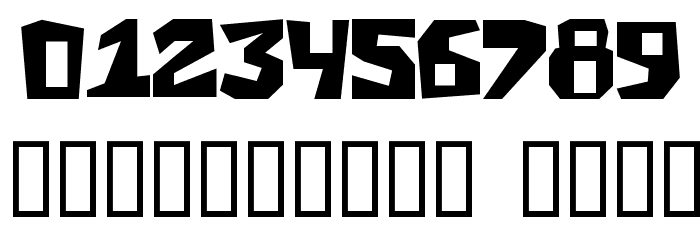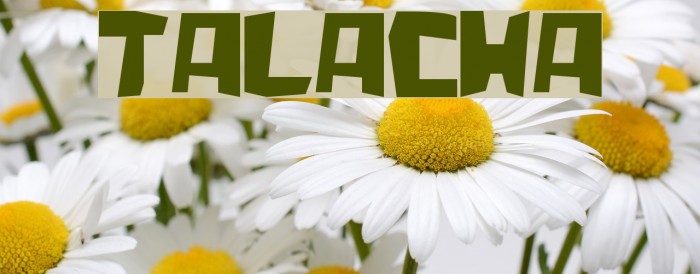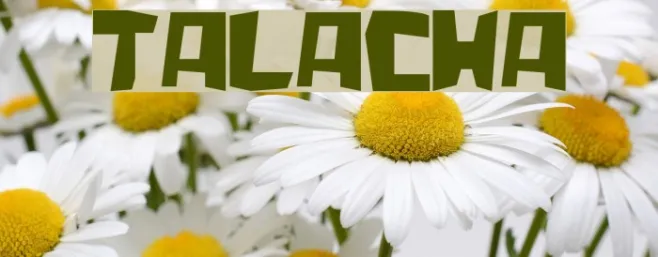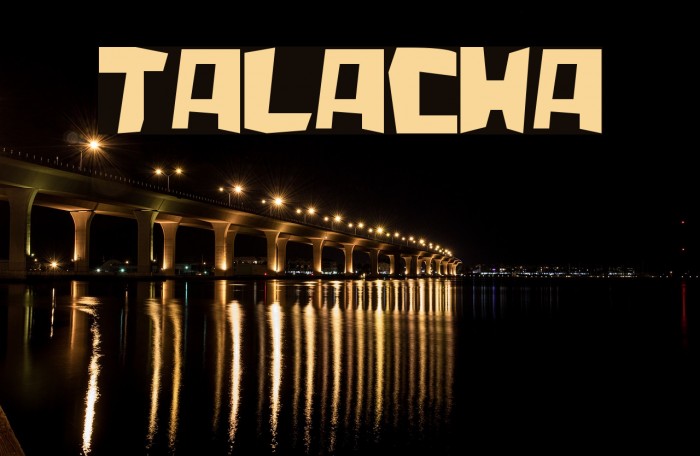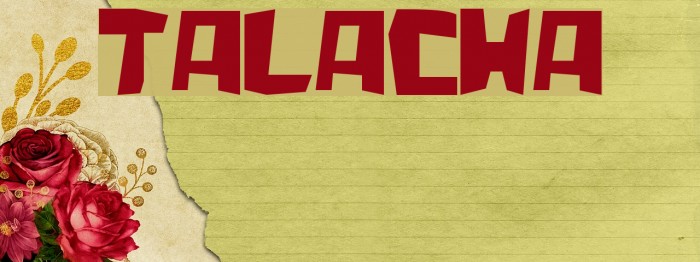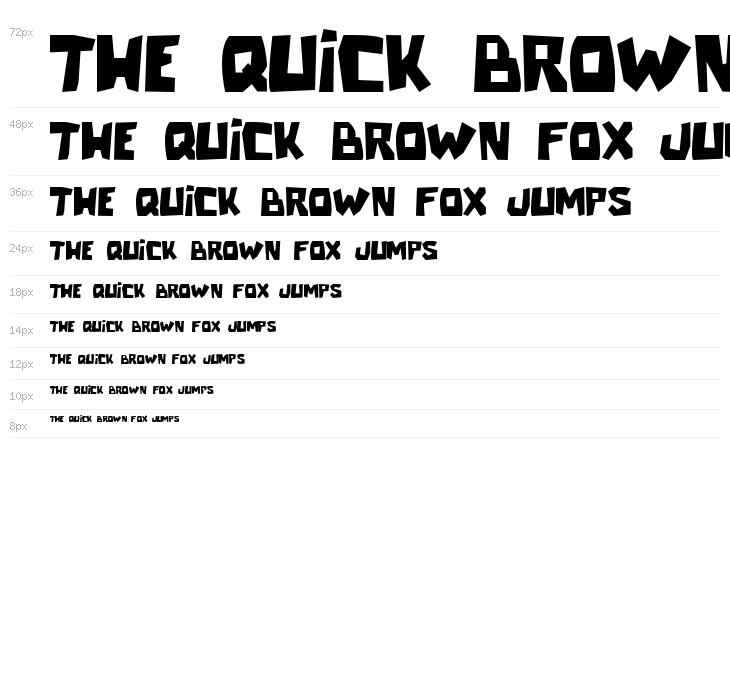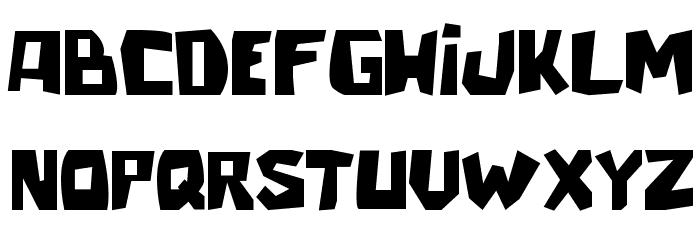
talacha Font
talacha Description
This font features a bold and angular design, characterized by its sharp edges and geometric shapes. The letters are heavily stylized, with each character appearing as if it has been carved or chiseled, giving it a rugged and dynamic appearance. The uppercase and lowercase letters maintain a consistent style, with a strong emphasis on angularity and boldness. The numbers follow the same design principles, ensuring uniformity across all characters. This font is highly decorative and makes a strong visual impact, suitable for projects that require a distinctive and eye-catching typeface.
| Proposed Projects | Ideal for posters, logos, video game titles, and any design needing a bold, striking typeface. |